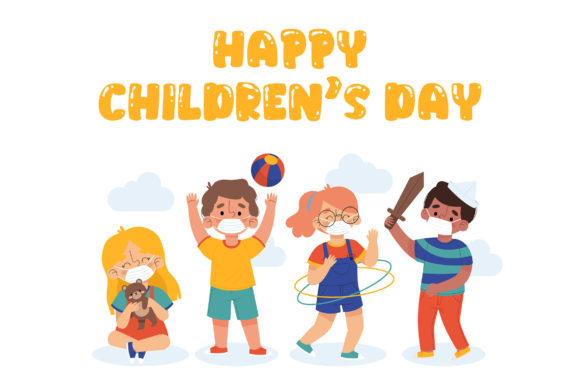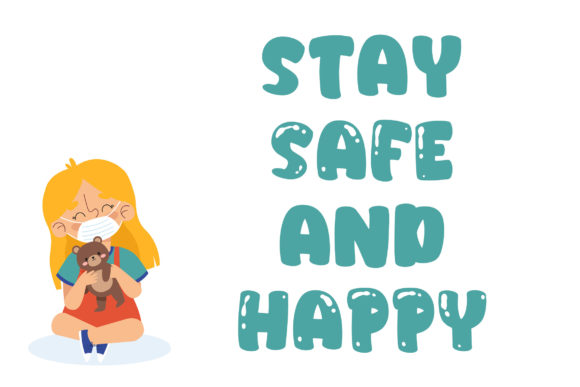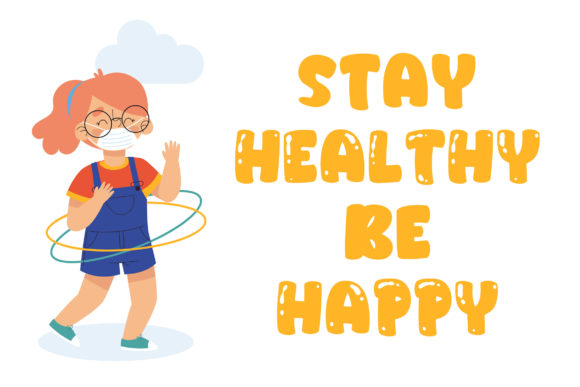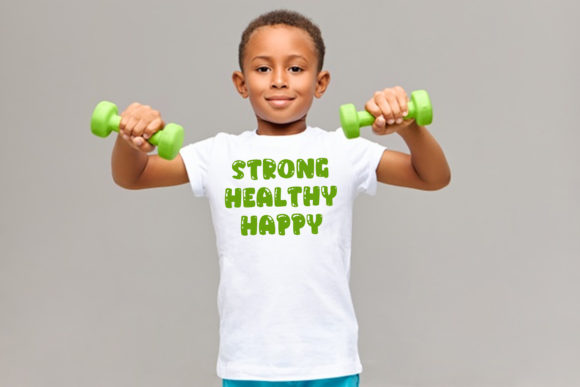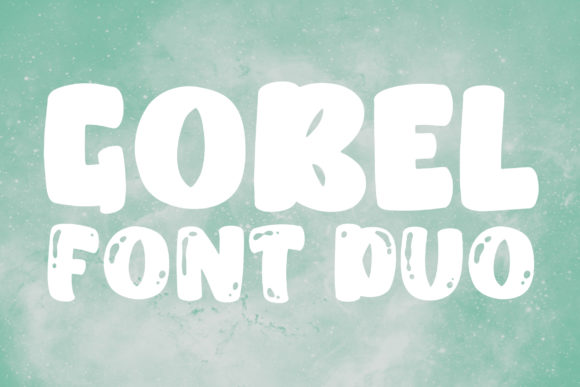
Gobel Font: The Fun and Playful Display Font for Your Creative Projects
Are you looking for a font that can add a touch of fun and playfulness to your designs? Look no further than the Gobel Font. This thick lettered and fun display font is perfect for cartoon related designs, children games, and any other creation that requires a lovely touch. In this article, we’ll take a closer look at the Gobel Font and explore its features, benefits, and uses.
What is Gobel Font?
Gobel Font is a display font that is designed to make a statement. Its thick letters and fun design make it perfect for headlines, titles, and other creative projects. The font is highly legible, even at large sizes, making it ideal for use in posters, billboards, and other visual displays.
Key Features of Gobel Font
So, what makes Gobel Font so special? Here are some of its key features:
- Thick Letters: The Gobel Font features thick letters that are perfect for creating bold and eye-catching headlines.
- Fun Design: The font has a fun and playful design that is sure to add a touch of personality to your creations.
- Highly Legible: The Gobel Font is highly legible, even at large sizes, making it perfect for use in a variety of creative projects.
- Versatile: The font is versatile and can be used in a variety of contexts, from cartoon related designs to children games and more.
Benefits of Using Gobel Font
So, why should you choose Gobel Font for your creative projects? Here are some of the benefits of using this font:
- Adds a Touch of Fun: The Gobel Font adds a touch of fun and playfulness to your designs, making them more engaging and attention-grabbing.
- Perfect for Cartoon Related Designs: The font is perfect for cartoon related designs, children games, and other creations that require a fun and playful touch.
- Increases Legibility: The Gobel Font is highly legible, making it perfect for use in headlines, titles, and other visual displays.
Uses of Gobel Font
So, what can you use Gobel Font for? Here are some ideas:
- Cartoon Related Designs: The Gobel Font is perfect for cartoon related designs, such as logos, posters, and other visual displays.
- Children Games: The font is also great for children games, such as game titles, buttons, and other interactive elements.
- Posters and Flyers: The Gobel Font is perfect for use in posters and flyers, adding a touch of fun and playfulness to your designs.
- Social Media Graphics: The font can also be used to create social media graphics, such as Facebook posts, Twitter headers, and other visual displays.
Tips for Using Gobel Font
Here are some tips for using Gobel Font:
- Use it for Headlines: The Gobel Font is perfect for use in headlines and titles, where its bold and eye-catching design can really make an impact.
- Experiment with Colors: The font looks great in a variety of colors, so don’t be afraid to experiment and find the perfect color for your design.
- Pair it with Other Fonts: The Gobel Font can be paired with other fonts to create a unique and visually appealing design.
In conclusion, the Gobel Font is a fun and playful display font that is perfect for cartoon related designs, children games, and any other creation that requires a lovely touch. Its thick letters, fun design, and high legibility make it a great choice for designers and crafters. With its versatility, ease of use, and range of benefits, the Gobel Font is a must-have for any creative project.